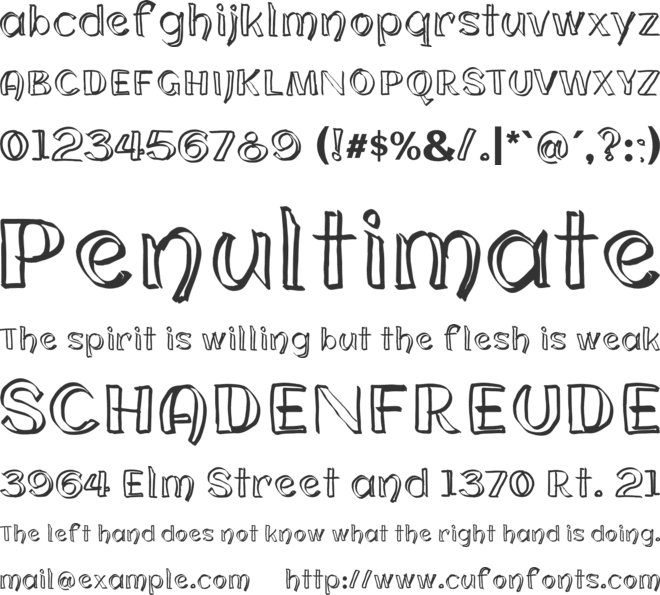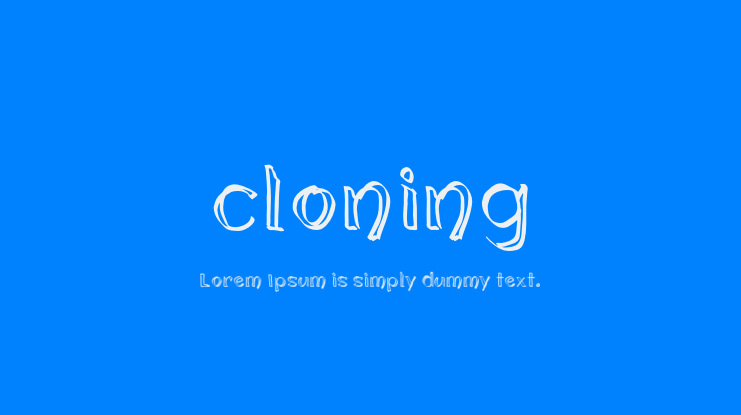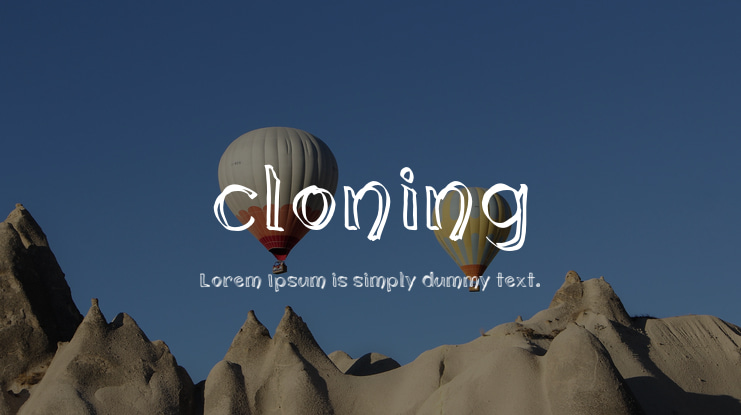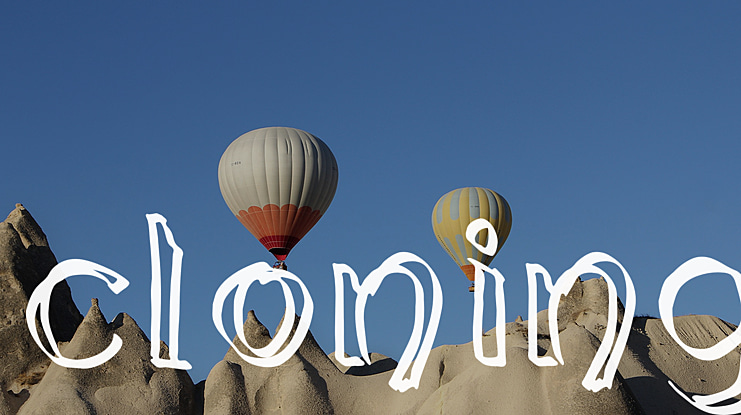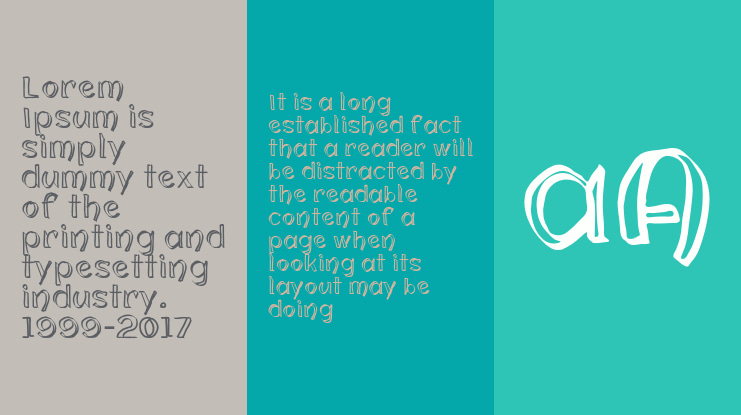
cloning Font Family
This Cloning Font created by Zatari is new font with new style that make your design look awesome. combine san serif with handwritten outline on every character.
This font is sans-outline font